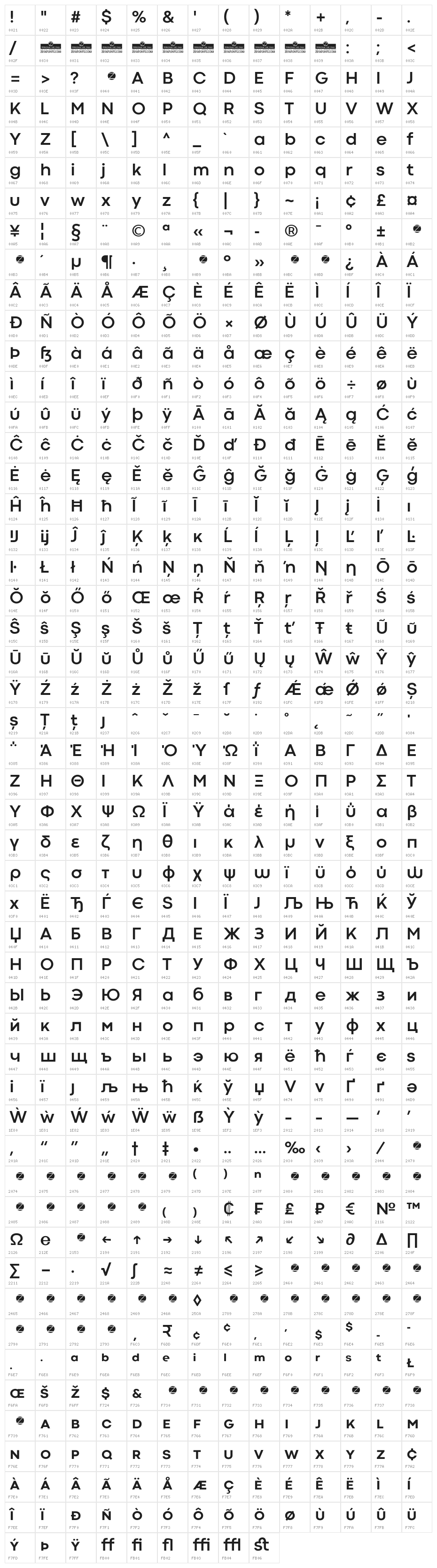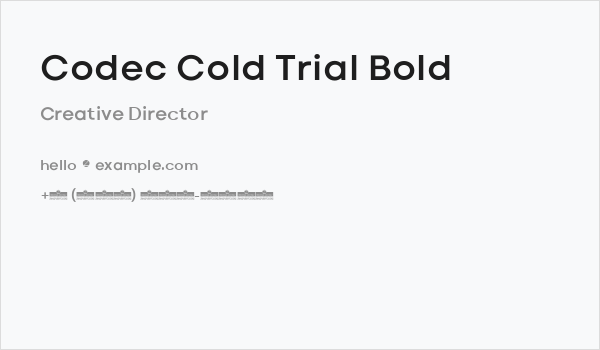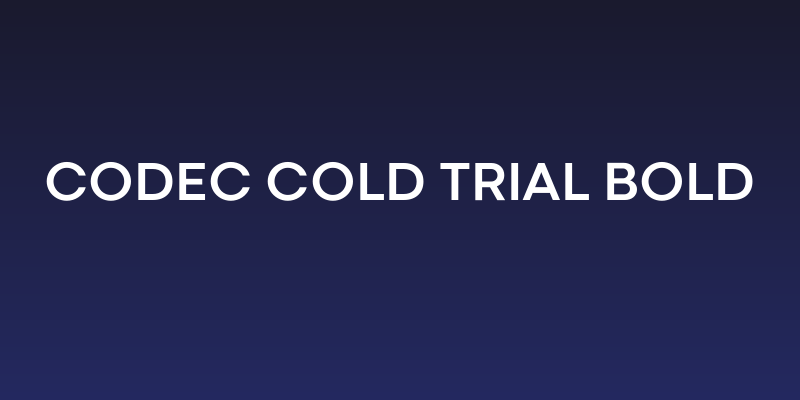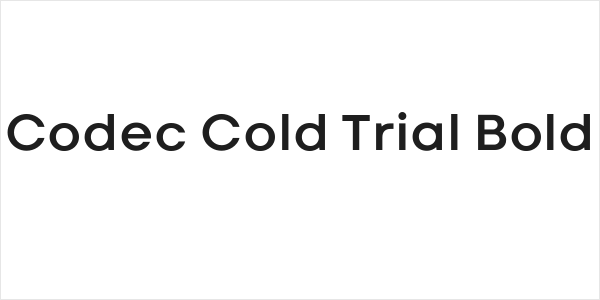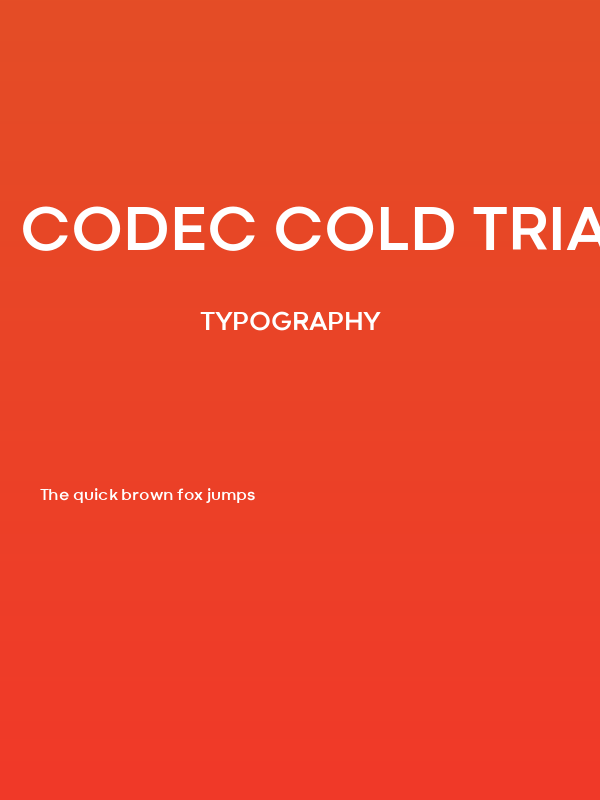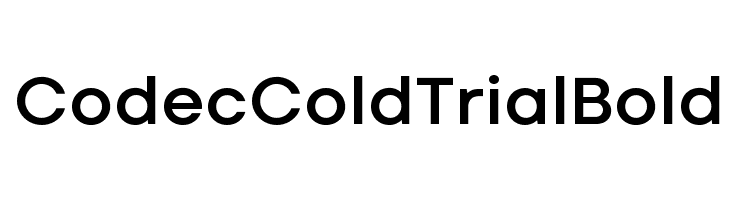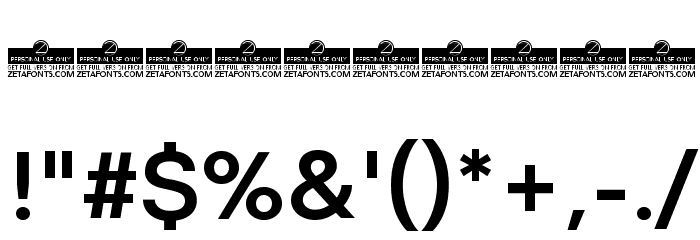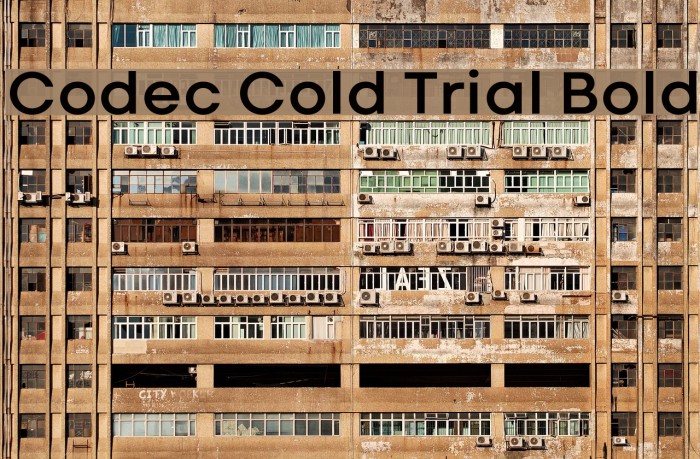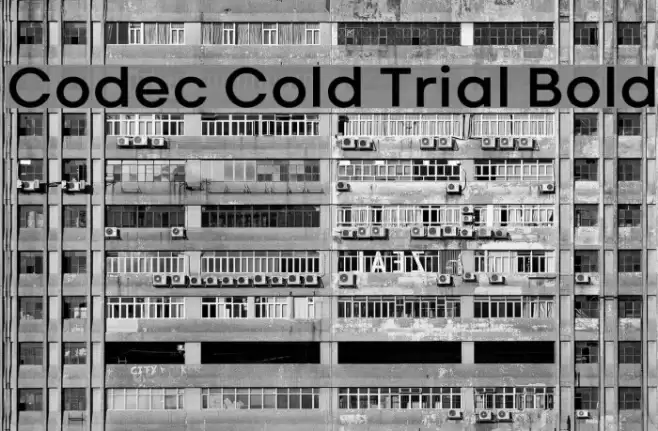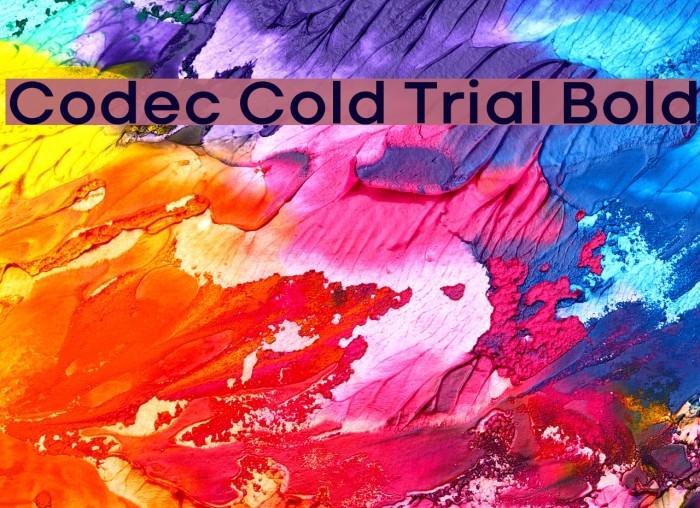
Codec Cold Trial Bold Font
Codec Cold Trial Bold Description
This font is a bold, modern sans-serif typeface characterized by its clean and geometric letterforms. The uppercase and lowercase letters are well-proportioned, with consistent stroke widths that convey a sense of stability and strength. The numerals and special characters are designed to match the overall aesthetic, maintaining the same bold and clear appearance. The font's simplicity and clarity make it highly legible, suitable for a variety of design applications where readability is key.
| Use Case | Headlines, Logos, Digital interfaces |
| Proposed Projects | Ideal for branding, advertising, headlines, and digital interfaces where a strong, modern presence is desired. |